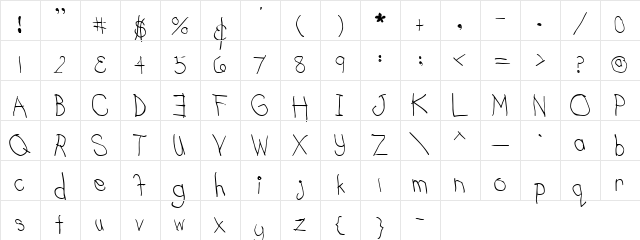
Clipz Smallworld Regular Font Preview
Clipz Smallworld Regular
Clipz Smallworld Regular Font Details
Design Context for Clipz Smallworld Typeface
Clipz Smallworld is a composed and adaptable typeface that performs quietly and consistently across a wide range of design contexts.